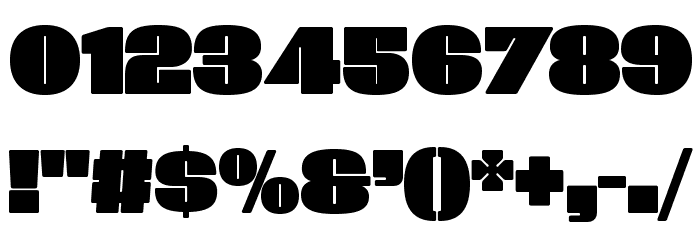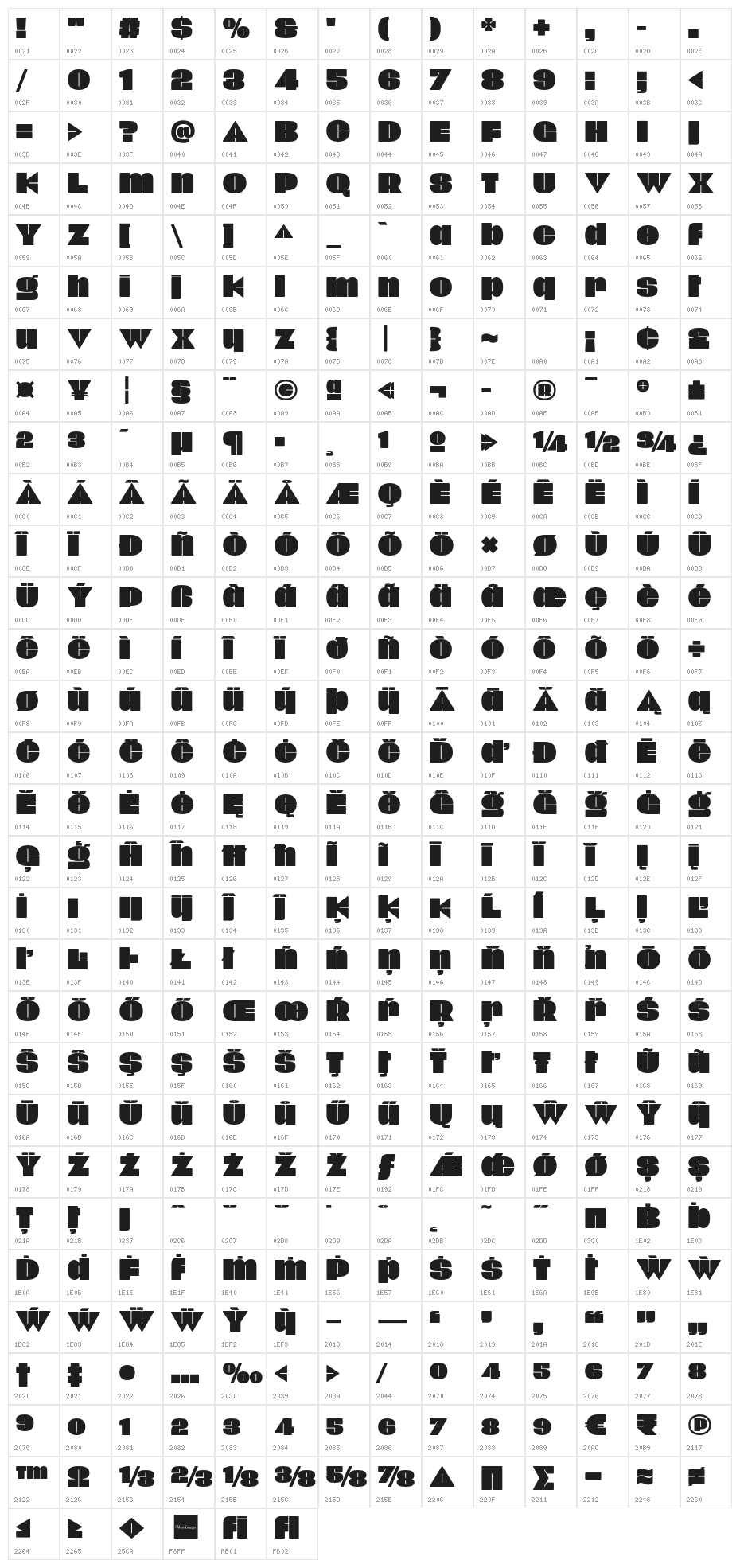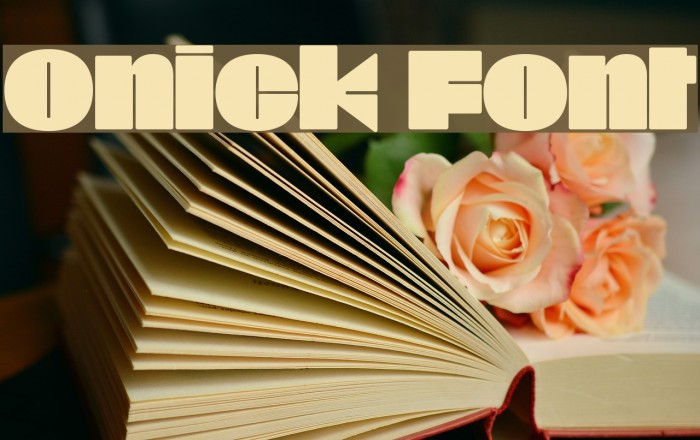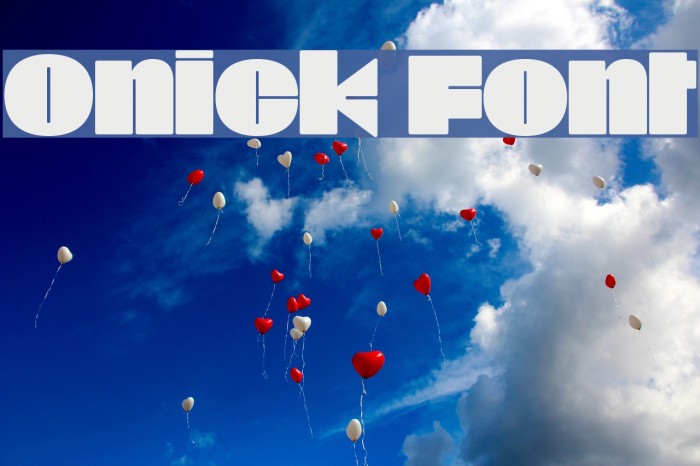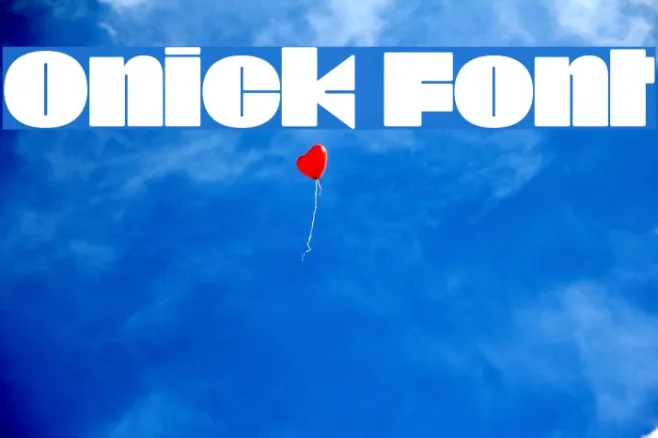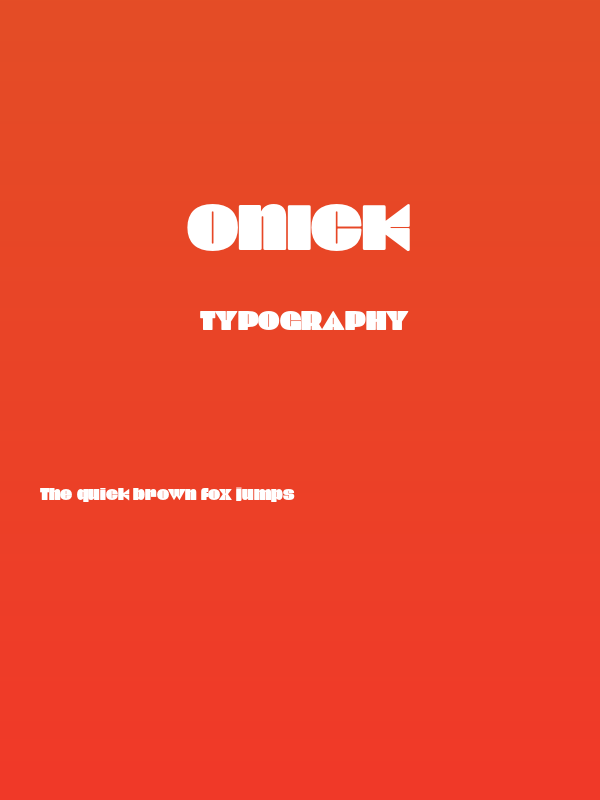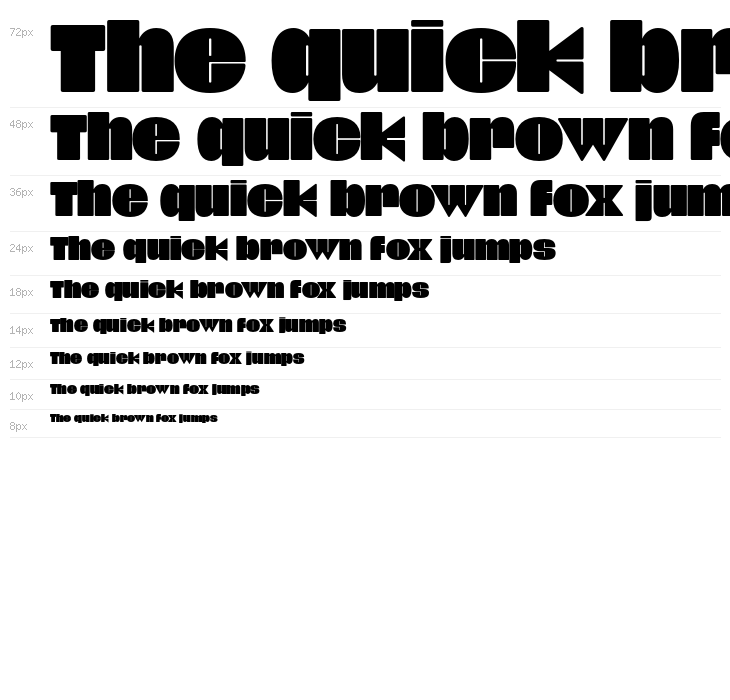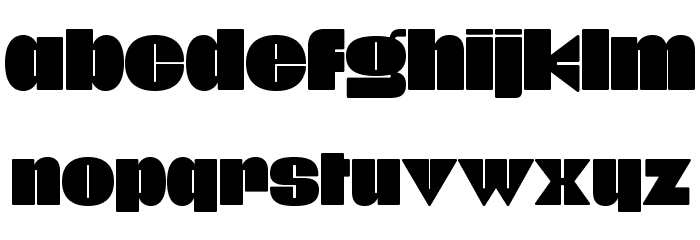
Onick Font
Onick Description
This font features a bold and impactful design, characterized by its thick, block-like letterforms. Each character is constructed with a strong geometric presence, creating a sense of stability and strength. The uppercase and lowercase letters maintain a consistent weight, contributing to a uniform appearance across all text. The numbers and special characters are equally robust, ensuring clarity and emphasis in any context. The overall design is modern and assertive, making it ideal for applications where attention-grabbing text is essential.
| Proposed Projects | Ideal for posters, headlines, branding, and any design requiring a strong visual impact. |